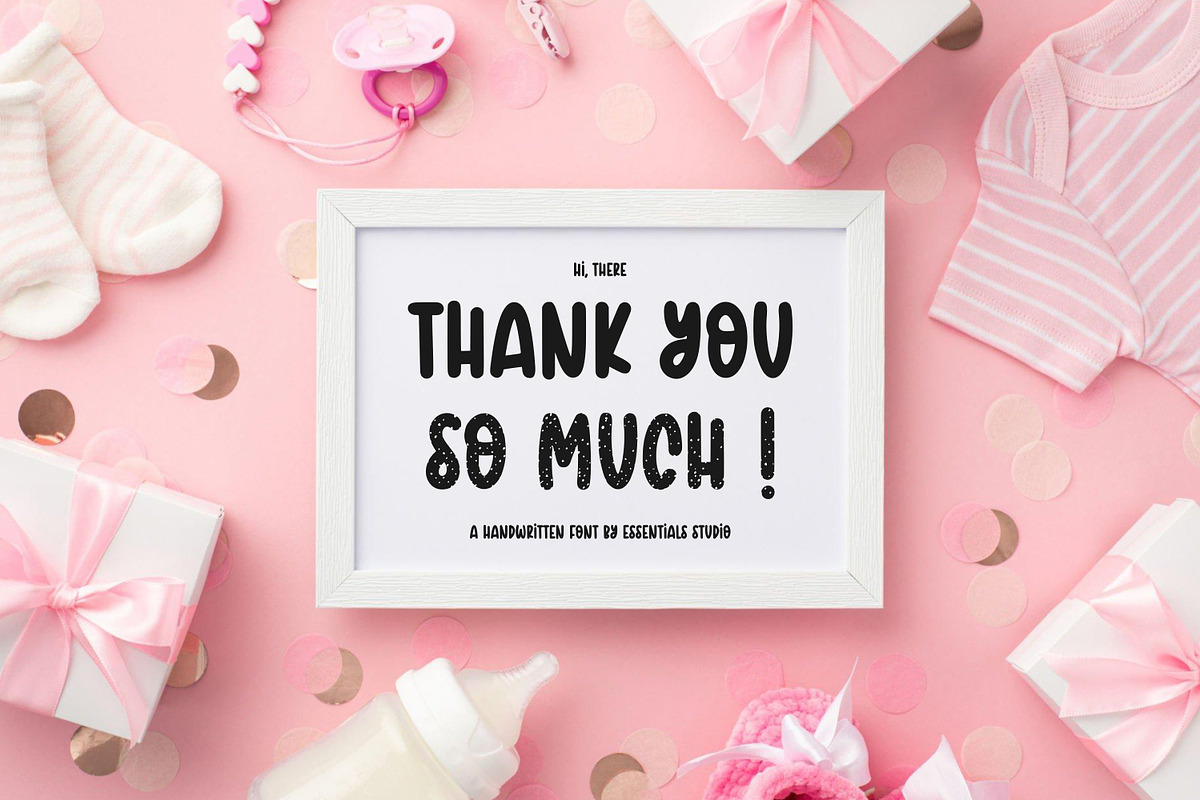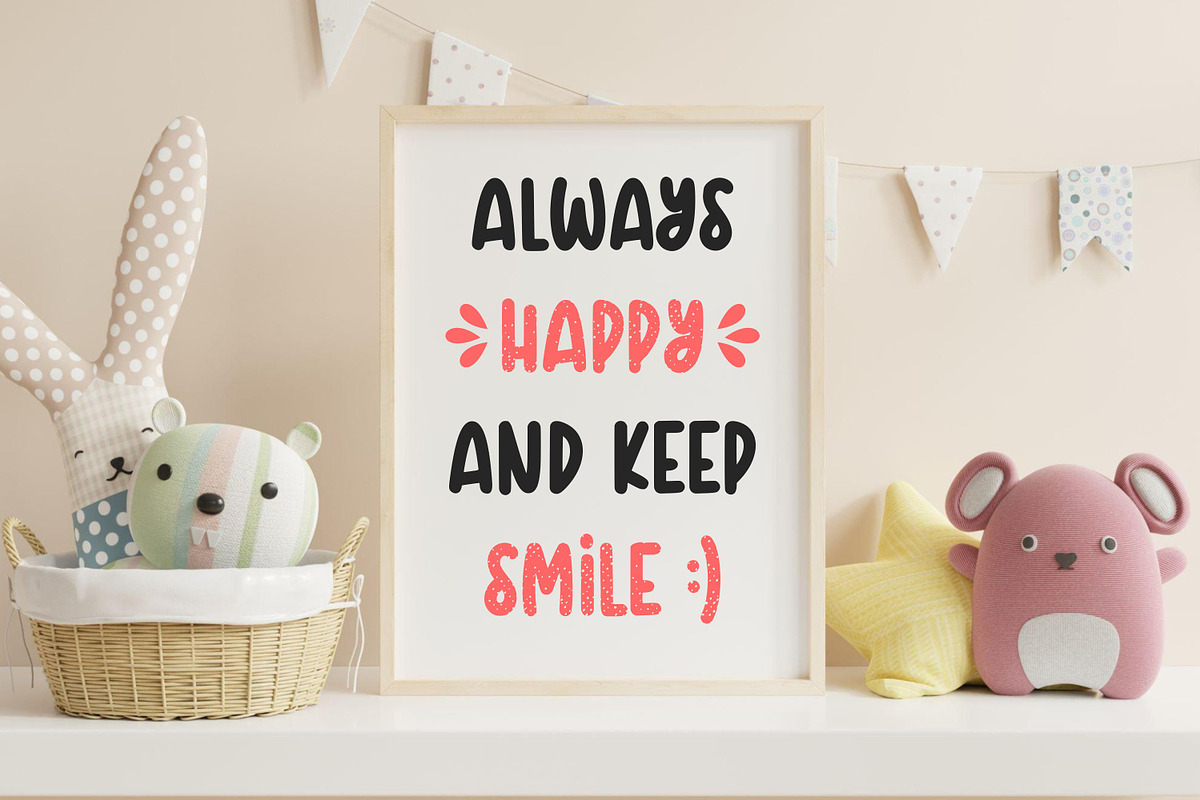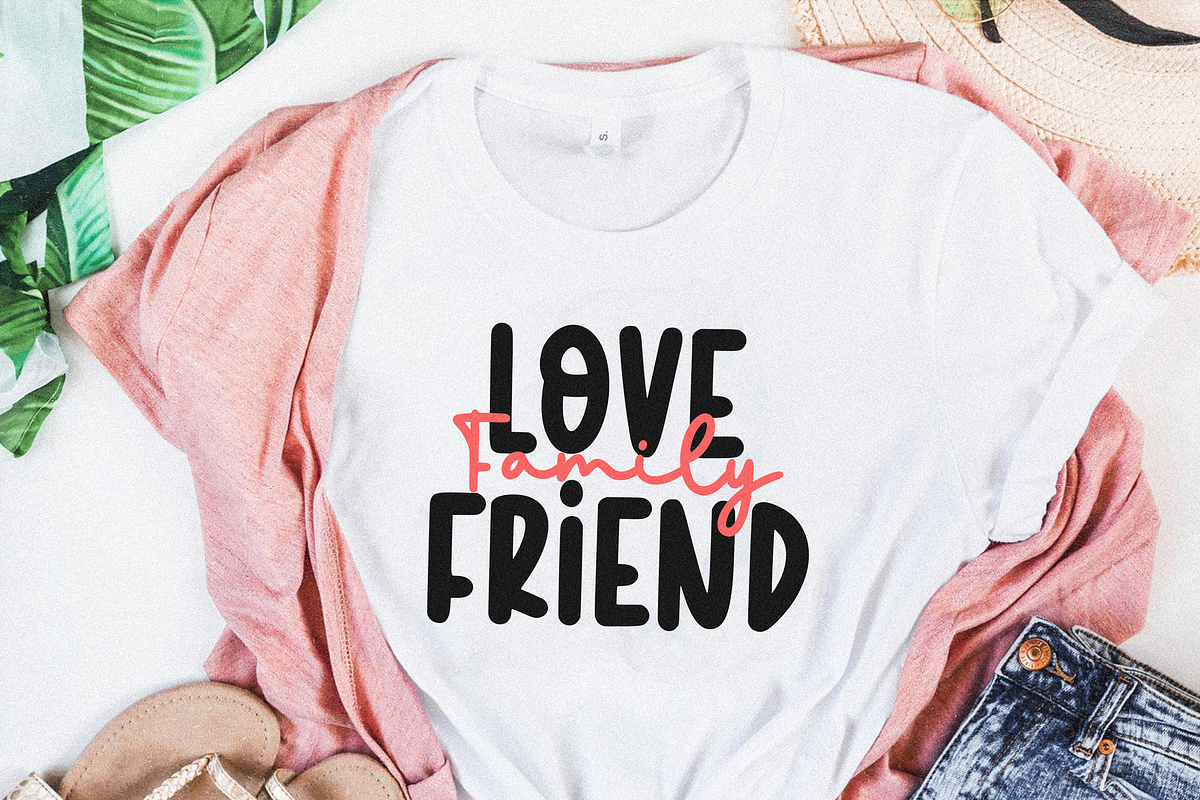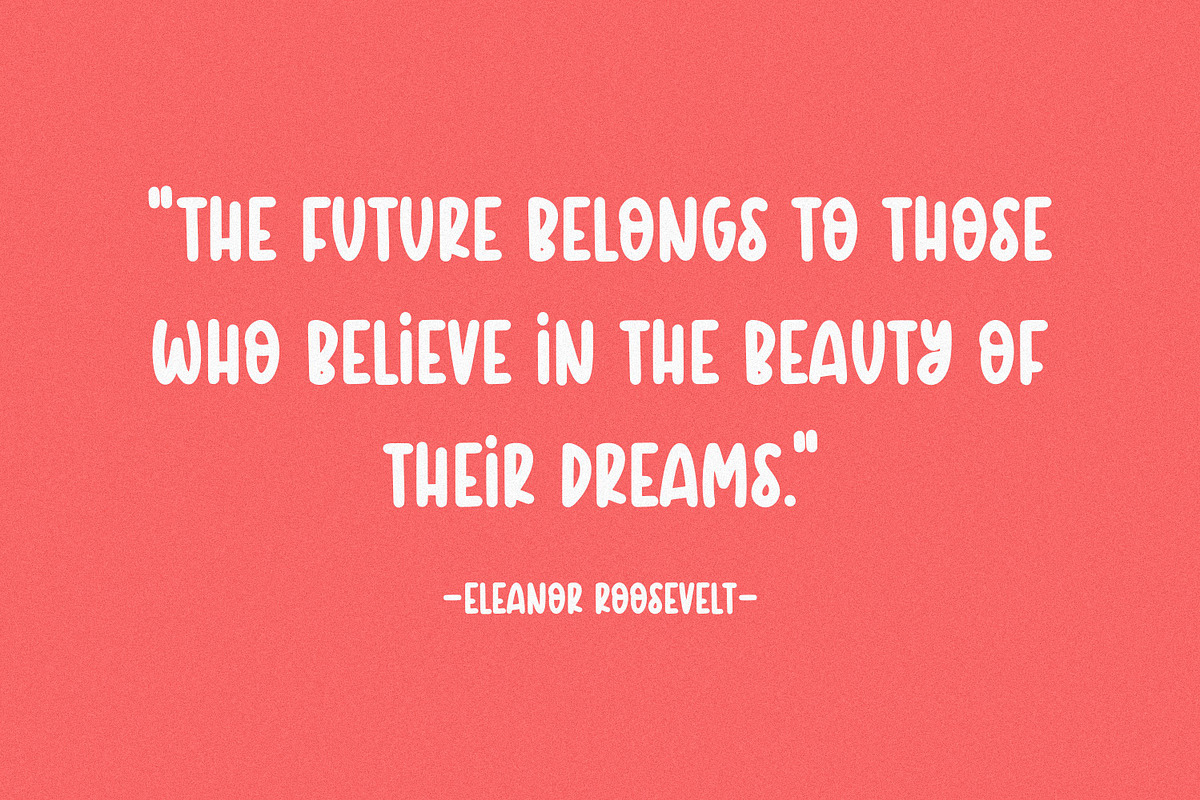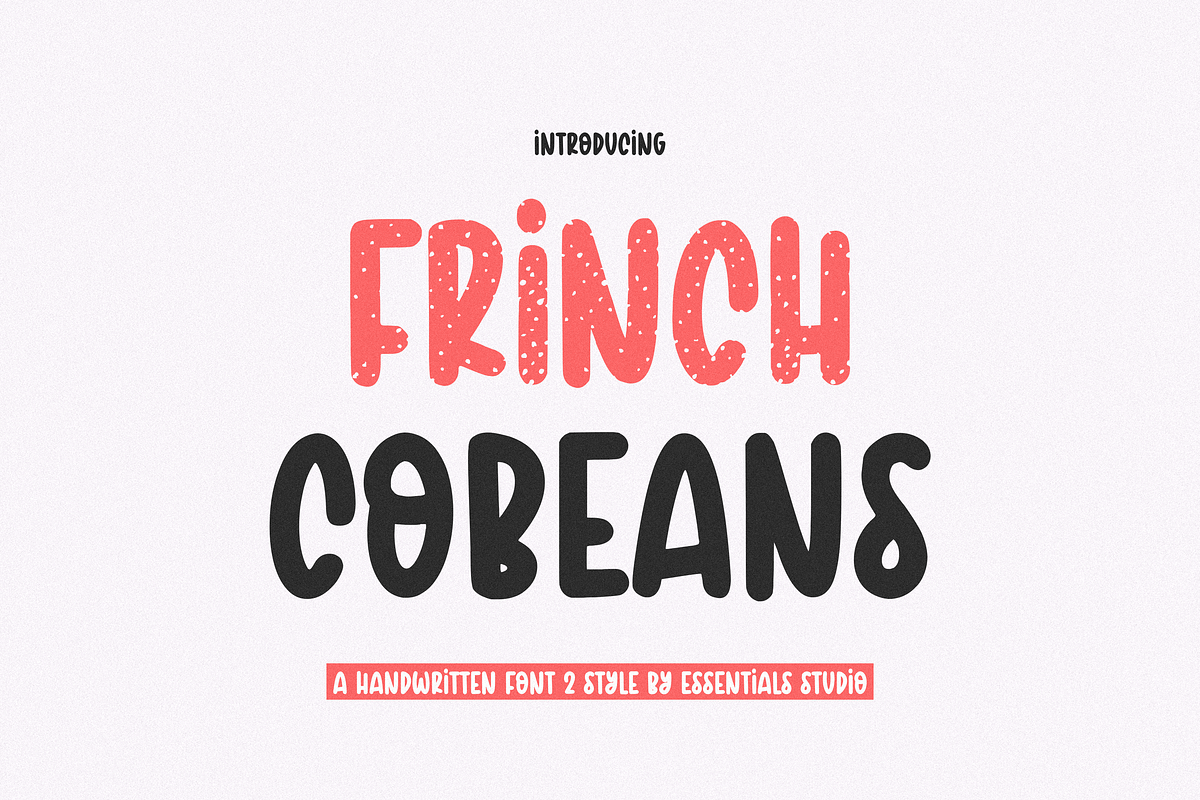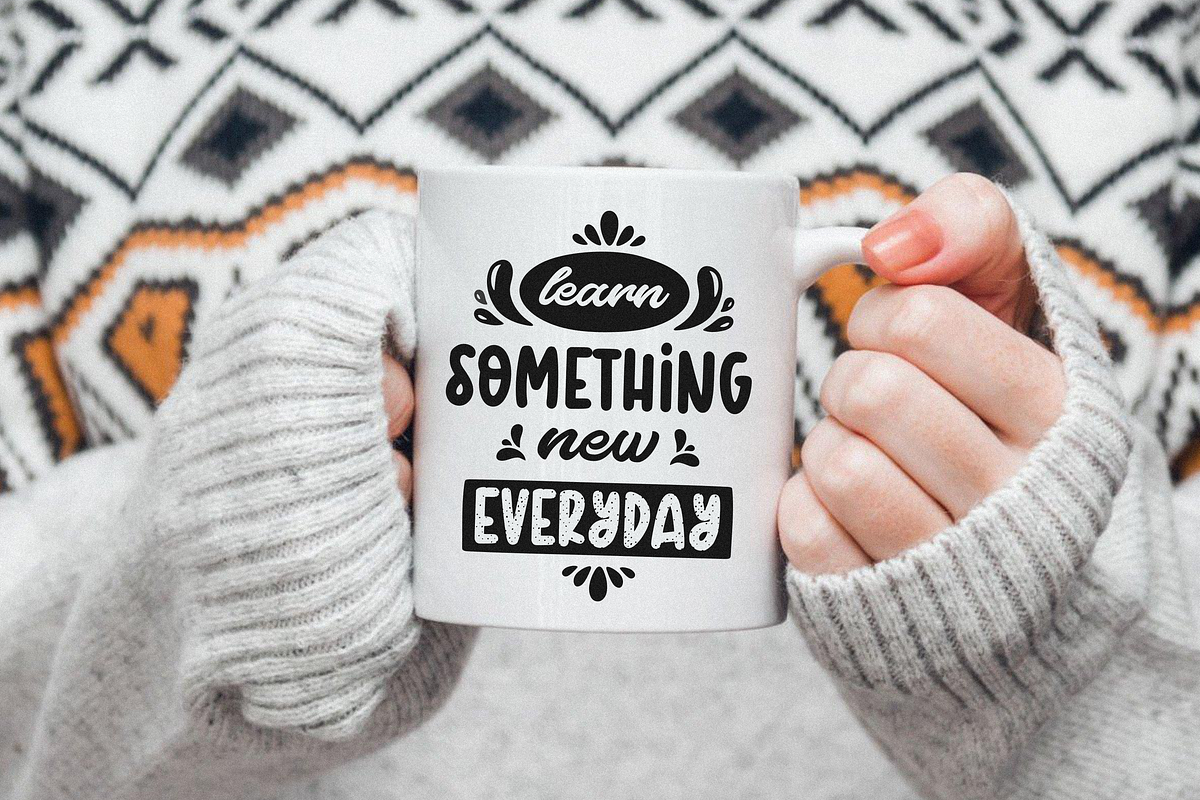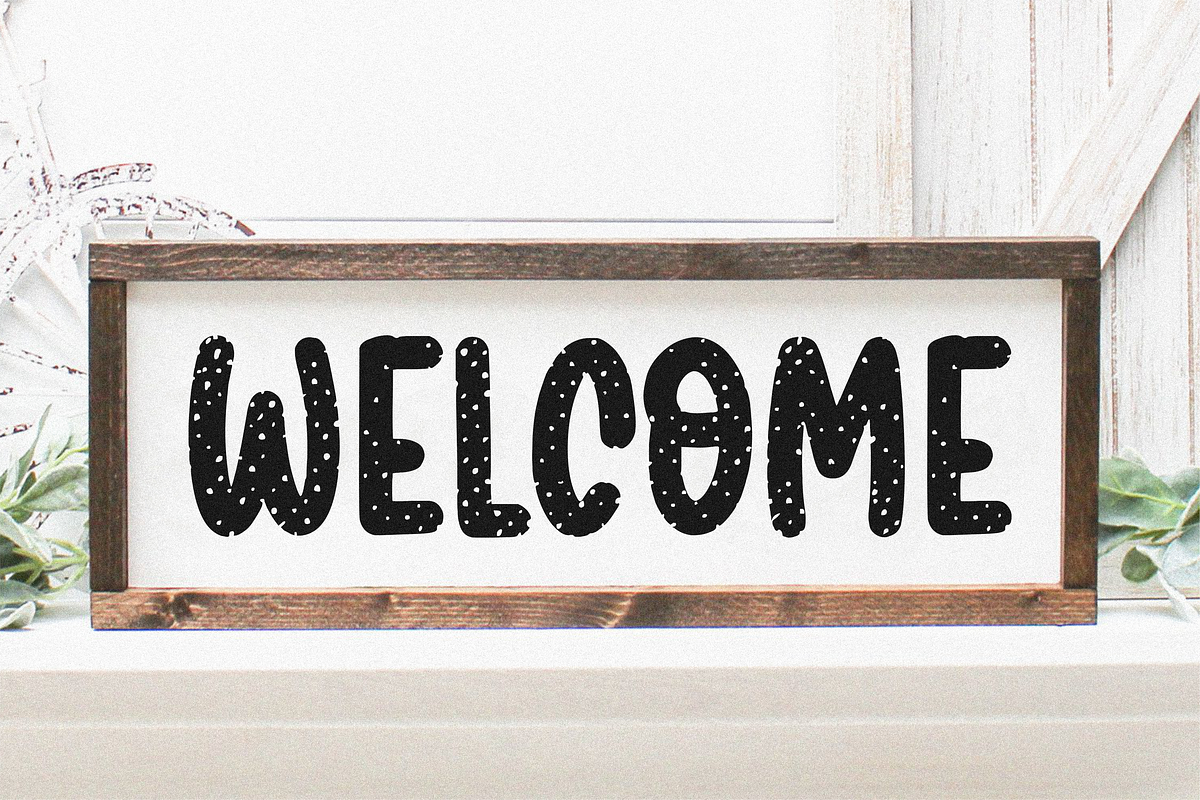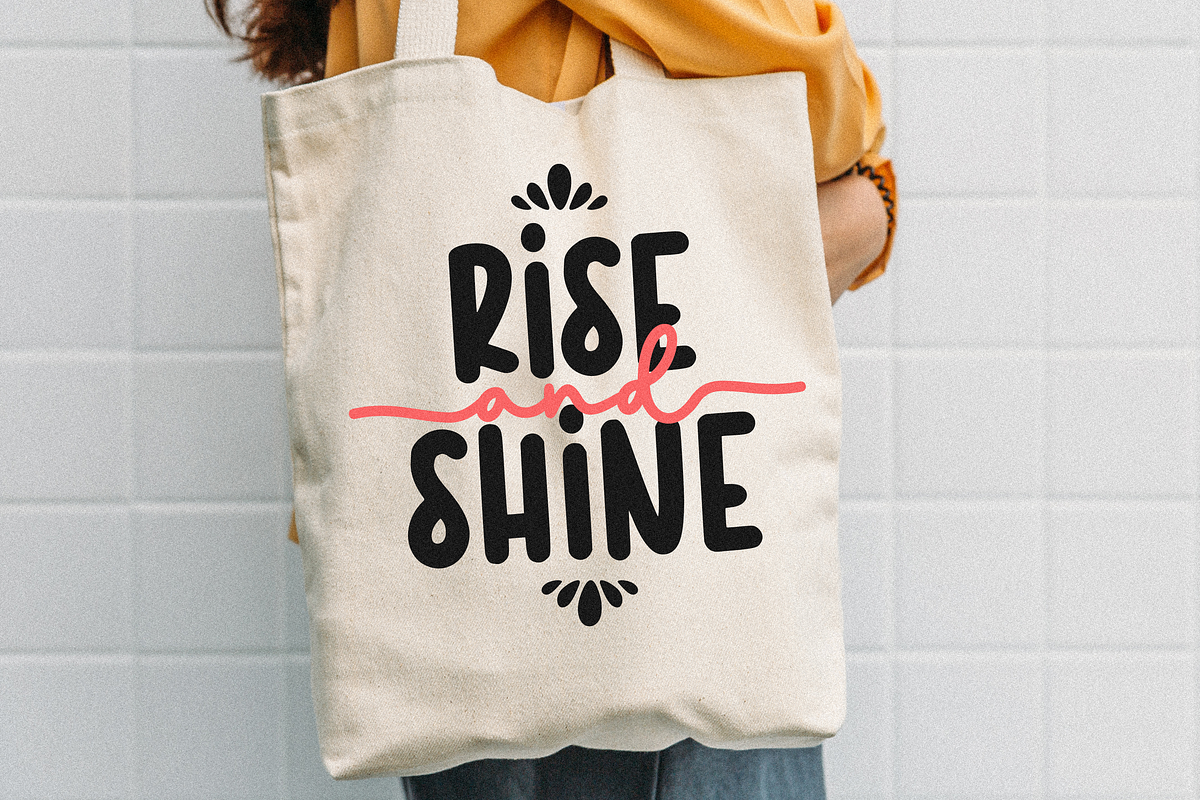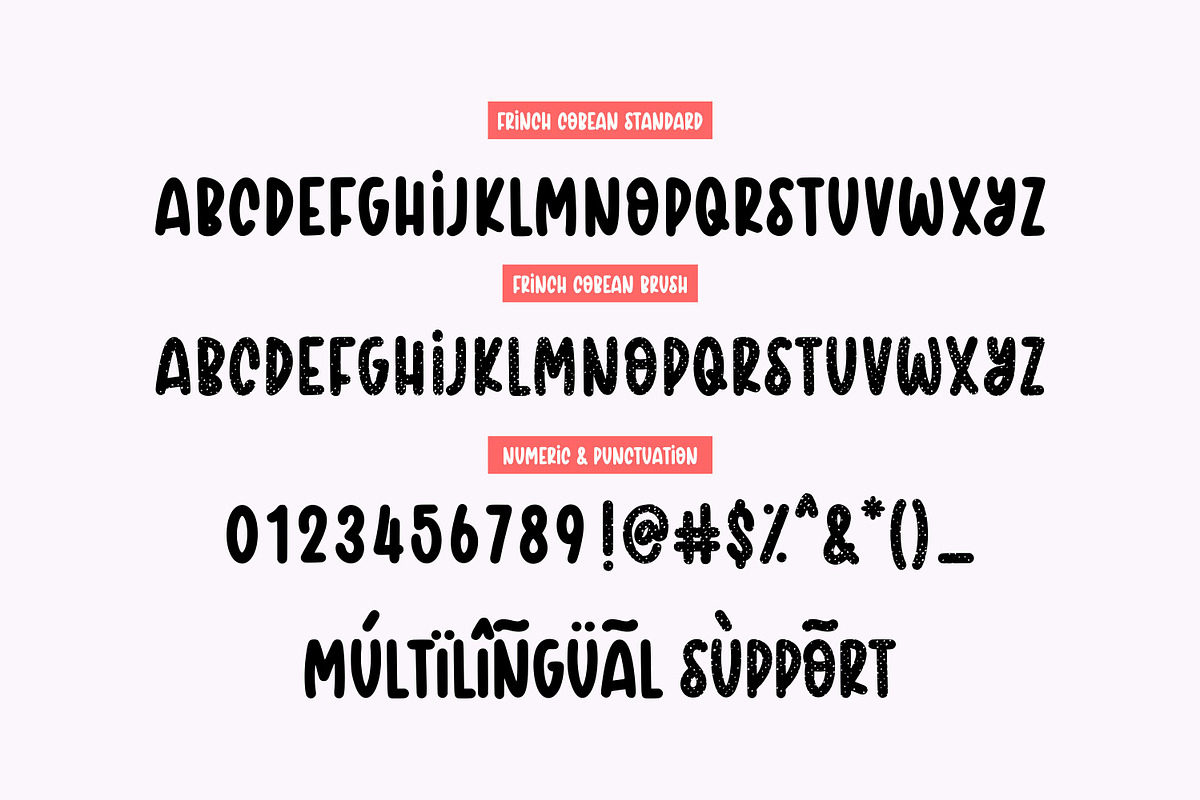
Frinch Cobean
introducing by Essentials Studio
Proudly Present, Frinch Cobean
Frinch Cobean Is a A Fun Handwritten 2 Style Font
Frinch Cobean is perfect for product packaging, branding project, megazine, social media, wedding, or just used to express words above the background.